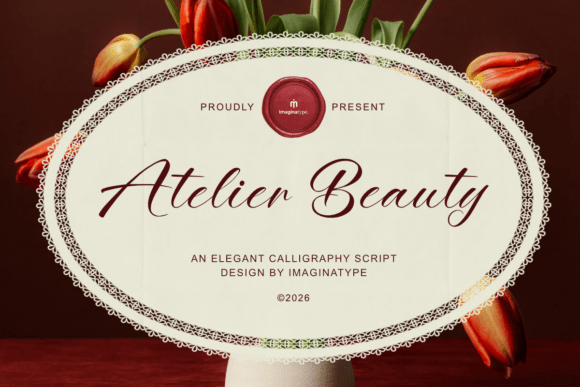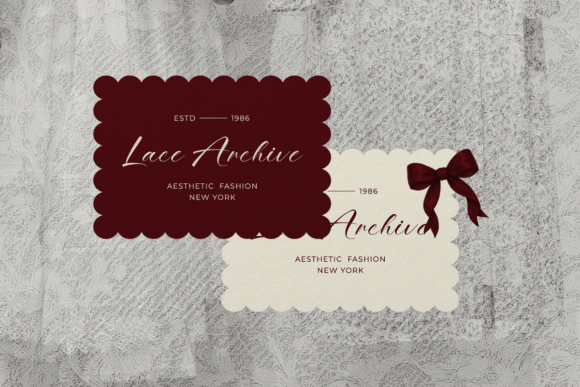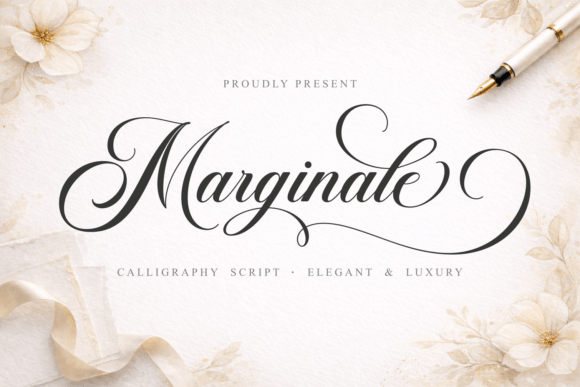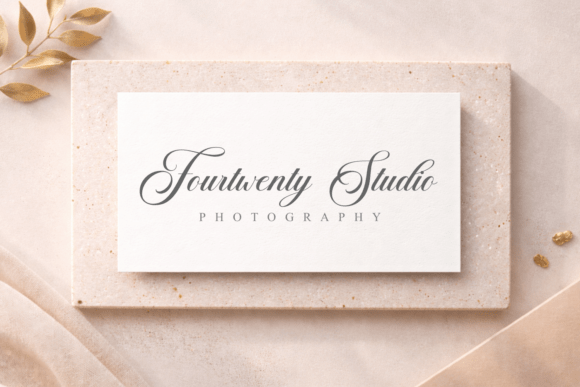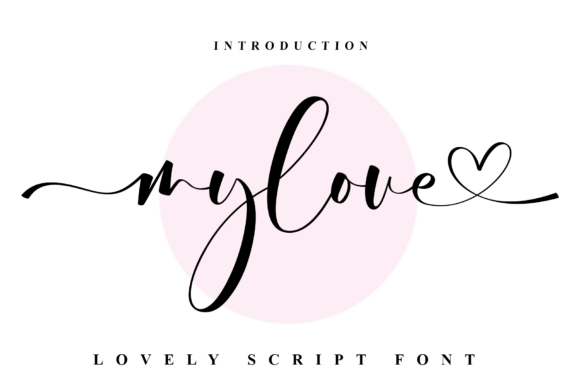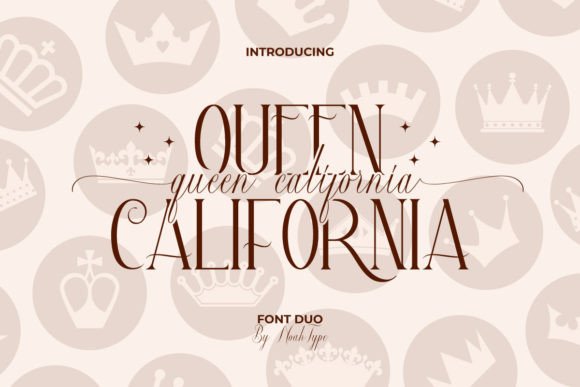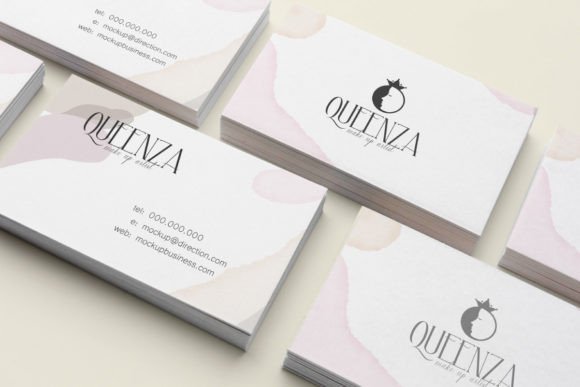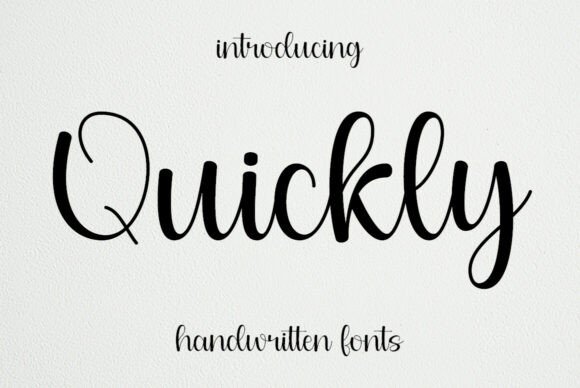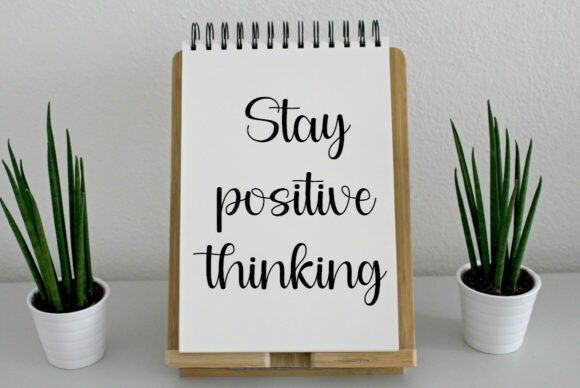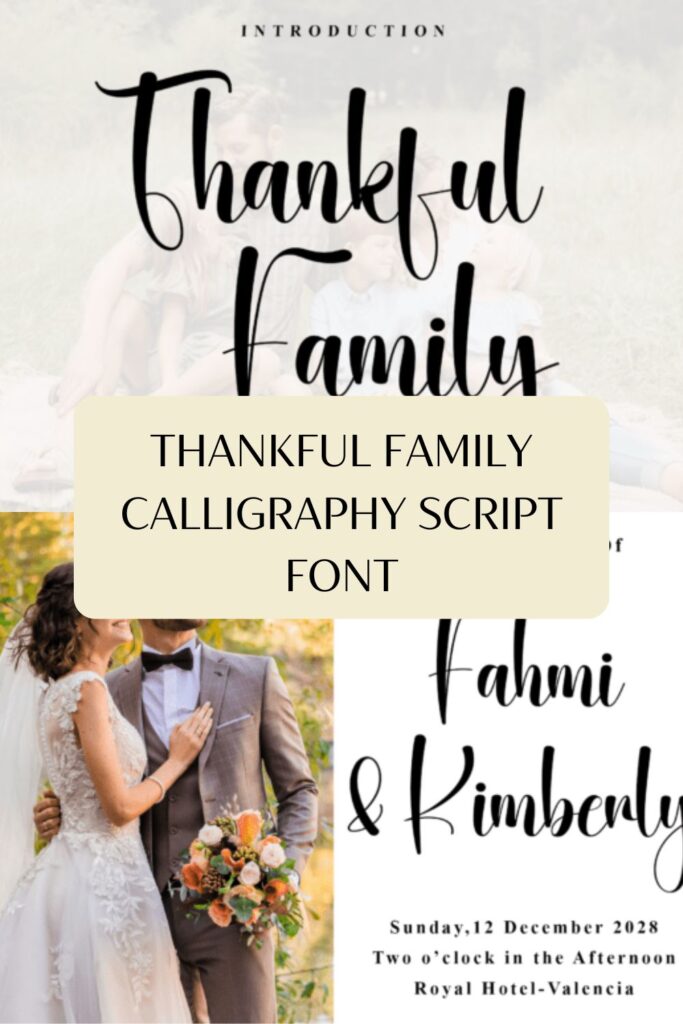
12 Stunning Calligraphy Script Fonts for Wedding Invitations
As a designer, finding the perfect typography is essential for creating work that truly resonates. There is nothing quite like the elegance of hand-drawn lettering to elevate a project. Today, I am sharing 12 of my absolute favorite Calligraphy Script Fonts to bring sophisticated magic to your canvas.
1. Queen California Calligraphy Script Font
Queen California Calligraphy Script Font
Finding a typographic pairing that feels both intentional and effortless is often the most rewarding part of my creative process, and that is exactly where Queen California shines. In my constant search for versatile Calligraphy Script Fonts, I am always thrilled to find a duo that balances a sharp, luxury serif display with a flowing handwriting script. As a designer who focuses on high-end branding, I find that this specific blend offers an elegant and sophisticated look that is perfect for professional wedding invitations or sleek magazine layouts that require a distinct touch of grace.
When I’m looking to inject a sense of premium craftsmanship into a project, I really appreciate the technical ease that comes with a well-built asset like this one. Because it is fully PUA encoded, you can access every beautiful glyph and flowing swash effortlessly, allowing you to customize your layouts without any technical friction. Whether I am styling elevated social media posts or crafting a cohesive brand identity for a digital resource hub, having this level of creative flexibility ensures the final result feels bespoke, polished, and ready to make a stunning visual impact.
2. Thankful Family Calligraphy Script Font
I often find that the most impactful designs are those that feel deeply personal, and Thankful Family is a perfect example of how modern typography can evoke that sense of heartfelt warmth. When I’m curating Calligraphy Script Fonts for my studio projects, I look for pieces that offer more than just standard curves; this typeface really shines with its long, delicate swashes, particularly on the capital letters. It brings an exquisite, sophisticated charm that is ideal for wedding stationery, giving every invitation an approachable yet high-end signature look that feels genuinely handcrafted.
What truly elevates this font in a professional workflow is its inclusion in a modern handwritten collection, featuring a rich array of glyphs, alternates, and ligatures. This ensures that the text flows naturally without the mechanical repetition often found in lesser scripts, maintaining a polished and professional feel. Whether I’m working on premium product packaging, subtle photography watermarks, or expressive social media quotes, Thankful Family remains a versatile favorite. It’s a high-quality asset for any creator seeking to blend luxury with a warm, memorable, and unique aesthetic.
3. Quincy Calligraphy Script Font
There’s a certain magic in the small details that transforms a standard design into something deeply personal, and Quincy captures that perfectly. When searching for Calligraphy Script Fonts to add a feminine, whimsical touch to branding projects, the version seen in Quincy-Fonts-121575037-1-1-580×387.png stands out for its charming heart-shaped dots on the letters “i” and “j”. Its graceful curves and smooth, flowing strokes provide a refined yet approachable personality, making it an exquisite choice for luxury wedding invitations or heartfelt social media quotes that establish a strong emotional connection.
The surprising versatility of this asset is a significant advantage for any creative toolkit, especially with the included bonus font, Playtoon. While Quincy handles elegant logos and branding with effortless sophistication, Playtoon offers a bold, playful contrast that is fantastic for kids’ learning materials or fun branding illustrations. Having these two distinct vibes allows for a high degree of imagination and visual appeal in any project, ensuring that digital design assets are always executed at a high professional level.
4. Marginale Calligraphy Script Font
There’s a certain timelessness in a typeface that feels as though it was penned by a master’s hand, and Marginale captures that essence with a flawless sense of grace. In my constant search for versatile Calligraphy Script Fonts, I am always on the hunt for a typeface that seamlessly blends delicate curves with refined strokes to create an undeniably luxurious feel. As a digital creator and designer focused on curating high-end design assets, I find this script to be an impeccable choice for wedding invitations and sophisticated branding where a timeless, sophisticated charm is essential.
What really makes this script a standout in a professional studio workflow is the effortless beauty found in its flowing letterforms and stylish swashes. It is masterfully designed to act as a highly versatile focal point for elegant logos and bespoke creative designs. Whether I am developing assets for a digital resource hub or styling premium marketing materials, this font ensures the final result carries a sense of bespoke craftsmanship and high-art elegance that truly resonates.
5. Falley Calligraphy Script Font
Finding a typeface that hits the sweet spot between handcrafted fluidity and polished, contemporary elegance is always a challenge, but Falley is a standout that bridges that gap perfectly. I’m particularly drawn to its pronounced curves and stylish swashes, which offer a rich, opulent appeal while maintaining optimum readability. It is a highly practical choice for high-end typography and modern lifestyle branding where you want to make a bold statement without losing any clarity.
Conclusion
Choosing the right typography can completely transform the emotional impact of your creative work. I hope this curated collection of Calligraphy Script Fonts inspires your next big project. Let these elegant letterforms bring that bespoke, high-end finishing touch to all your future design endeavors!